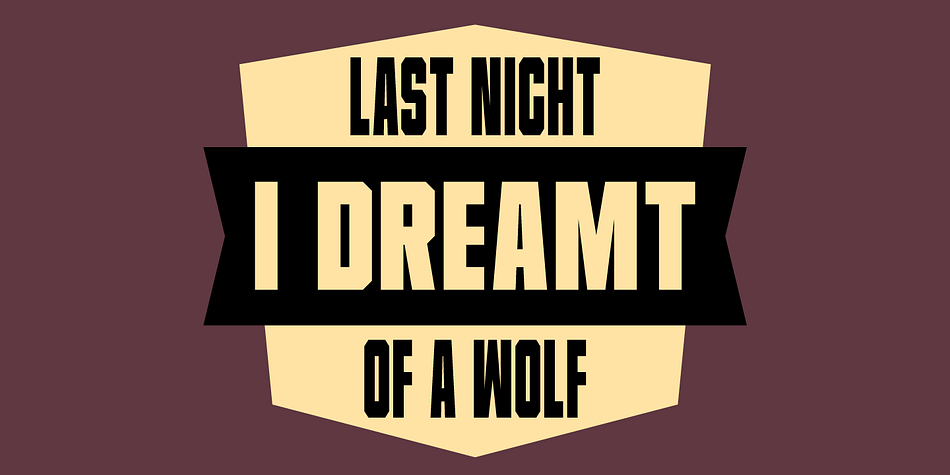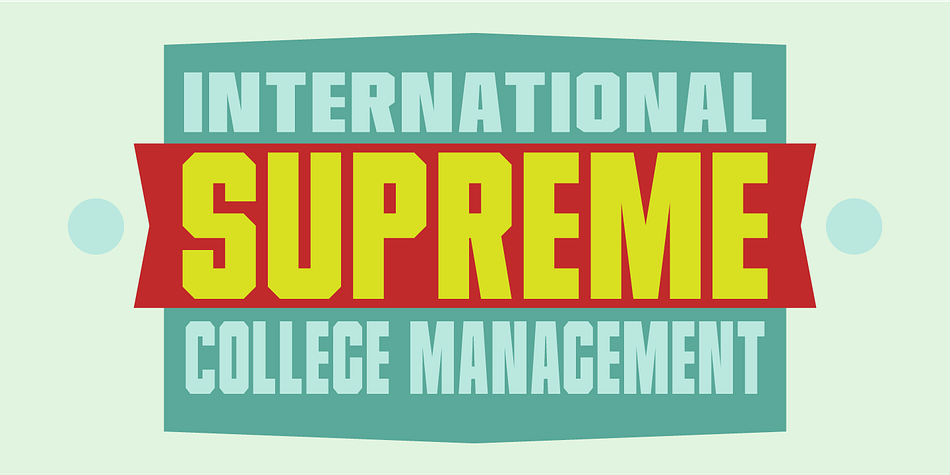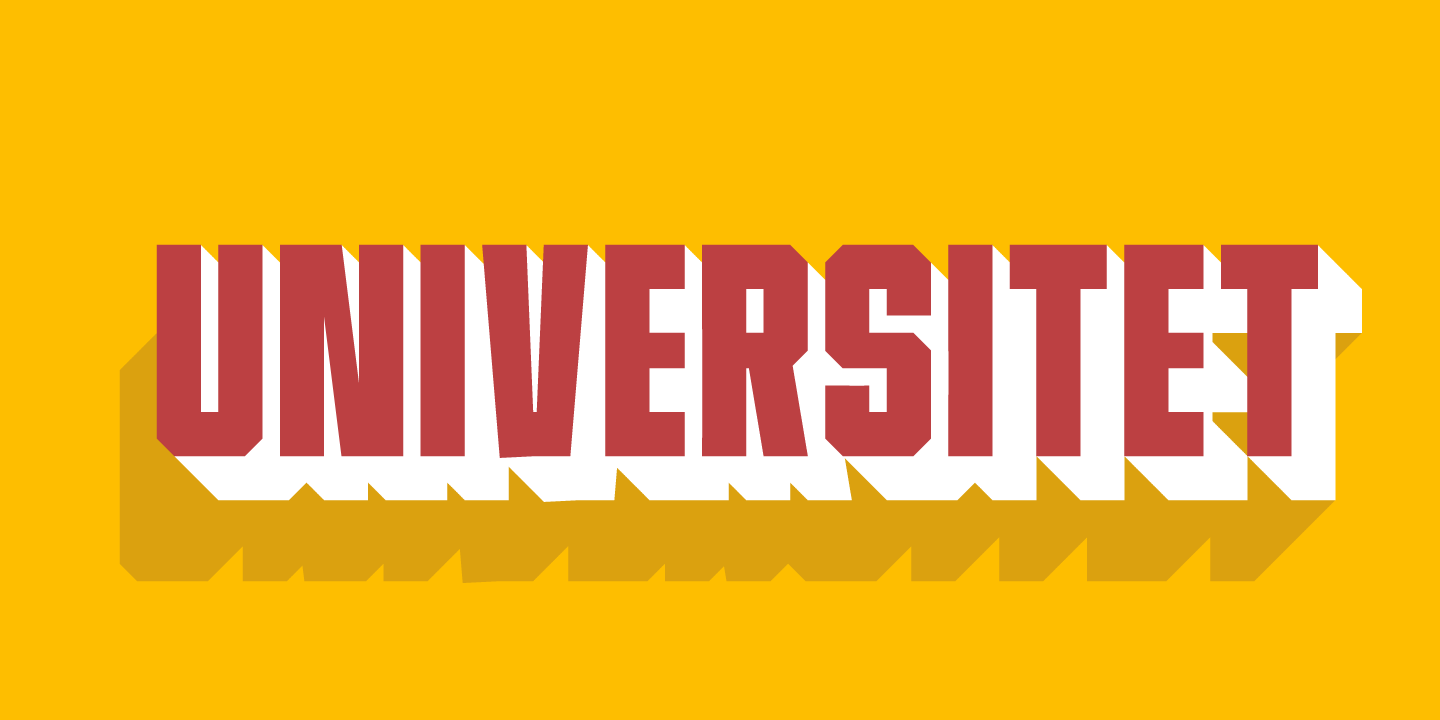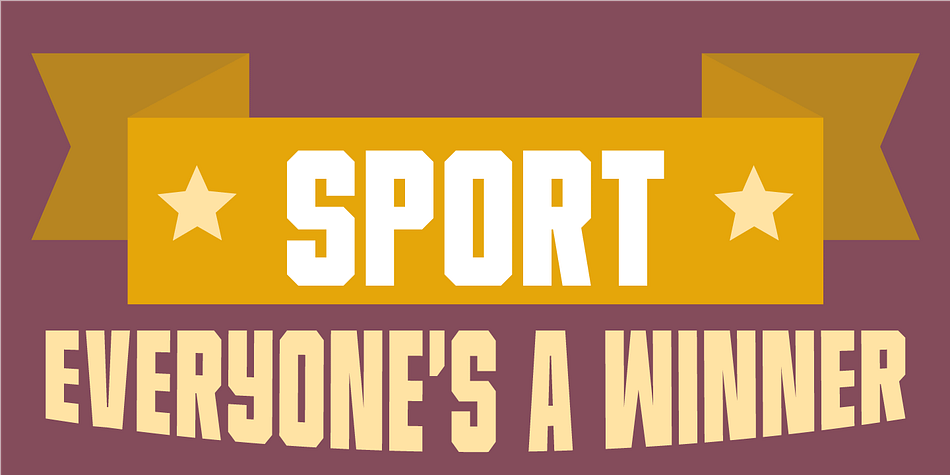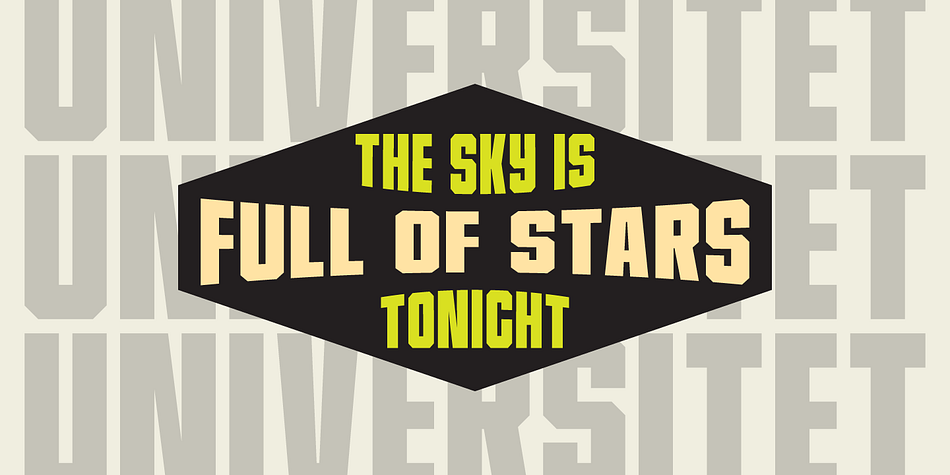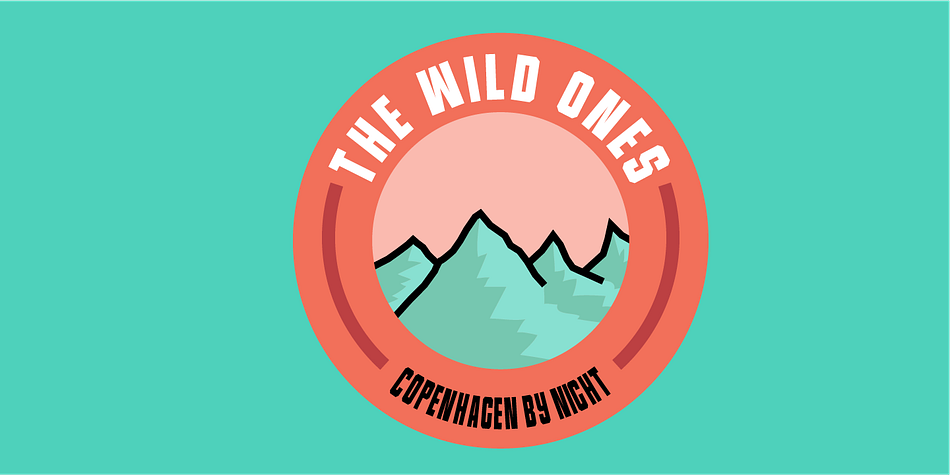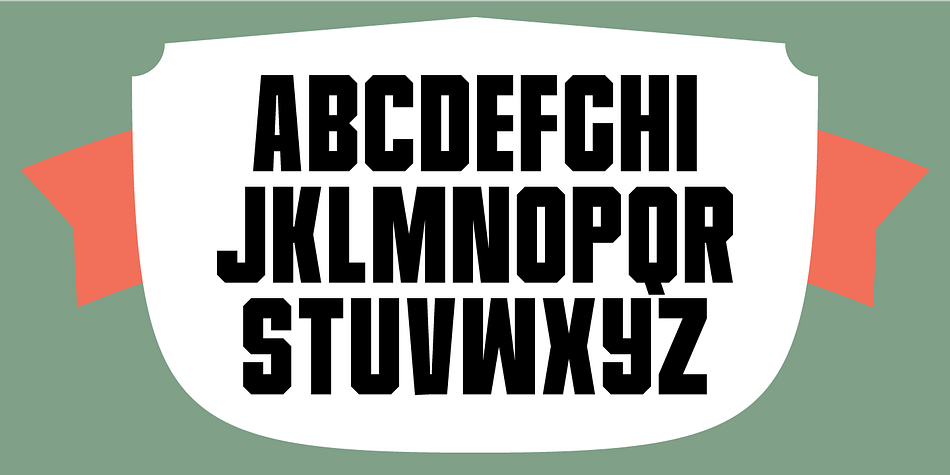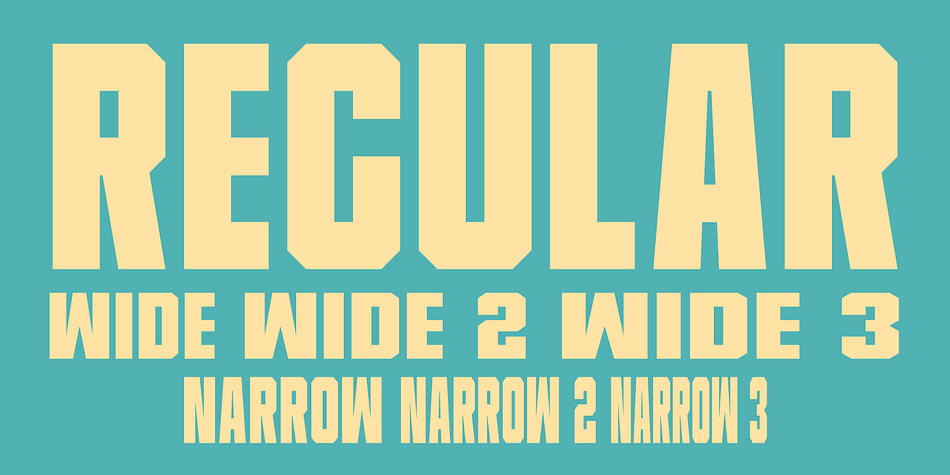
Designed by Jakob Fischer, Universitet is a display sans font family. This typeface has seven styles and was published by Pizzadude.dk.
A college letter based font, great for headlines and shoutouts!